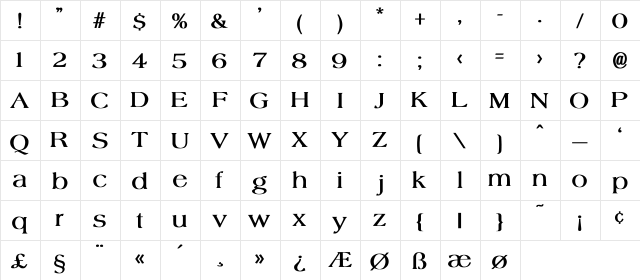
Shale Bold Font Preview
Shale Bold
Shale Bold Font Details
Design Context for Shale Typeface
Shale is a composed and adaptable typeface that performs quietly and consistently across a wide range of design contexts. Its bold stroke weight gives it real presence on the page.
Pro Tip: Use Shale in both headline and body roles to test its range before committing to a single application.